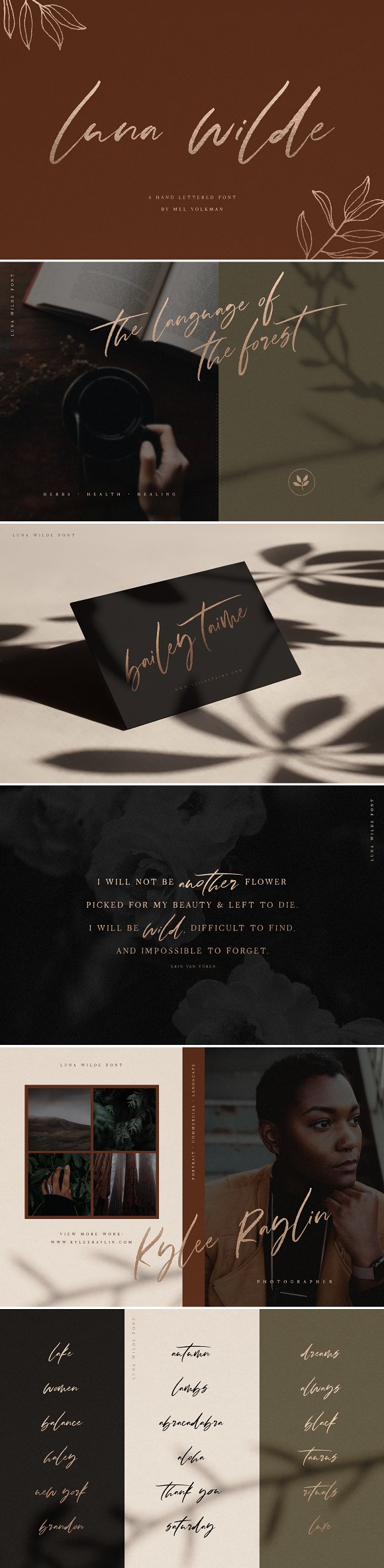
Luna Wilde Hand Lettered Font
Luna Wilde is a beautiful, hand lettered brush script font with a free-spirited flow and an infinite amount of styling opportunities! Not only will you find an array of stylized ligatures / alternate letters, but you’ll have so much fun mixing and matching the upper and lowercase letters to give each word a truly personalized feel.
Luna Wilde pairs beautifully with many fonts and can be used in a variety of different scenarios! Perfect for many design projects such as logo design, branding, blog graphics, stylizing quotes, wedding stationery, art prints, collateral design, packaging, social media, and so on. I’ve truly enjoyed the process of creating this font and hope that it will bring some magic into your projects!